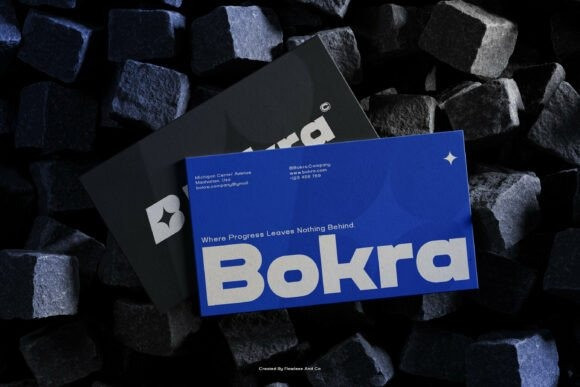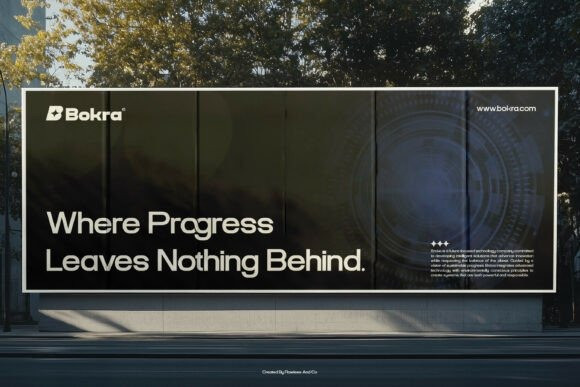
Bokra Font
Bokra Font is a bold and modern sans serif font designed to deliver strength, clarity, and contemporary appeal. Featuring two styles Regular and Bold. this font offers clean shapes and strong letterforms that make any design stand out with confidence. Bokra is perfect for modern branding that needs a powerful yet minimal look.